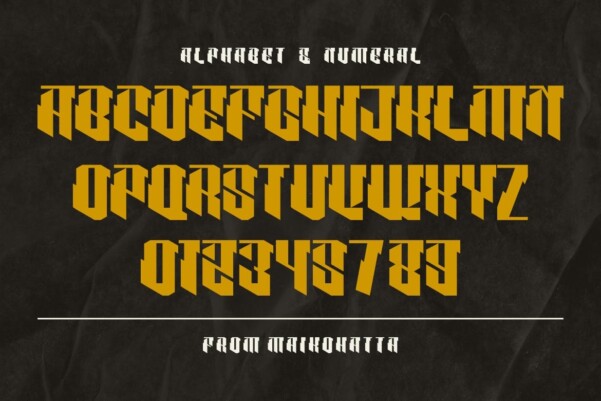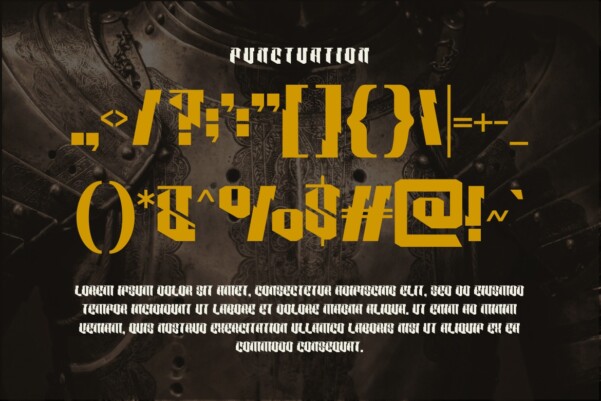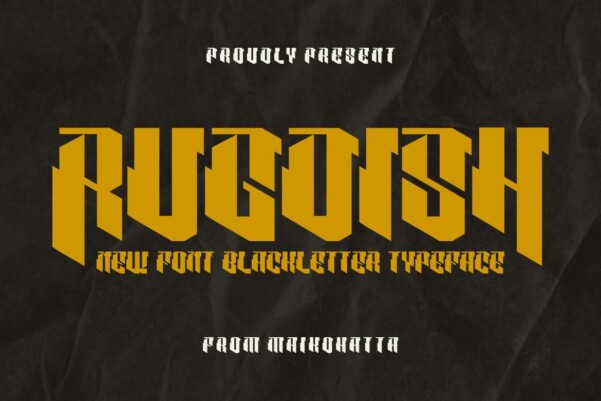
RUGOISH – Blackletter Font
RUGOISH – Blackletter Font. This type has a character of hipster vibe, hip-hop, youth, urban culture, etc. This type is very suitable for creating a poster, magazine layout, brand logo, cover art, party flyer, quotes or just as a stylish text overlay on any background image .